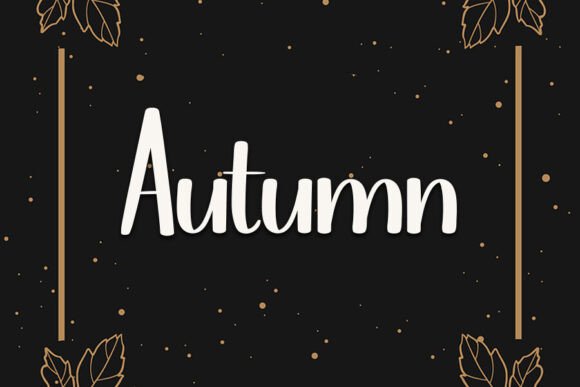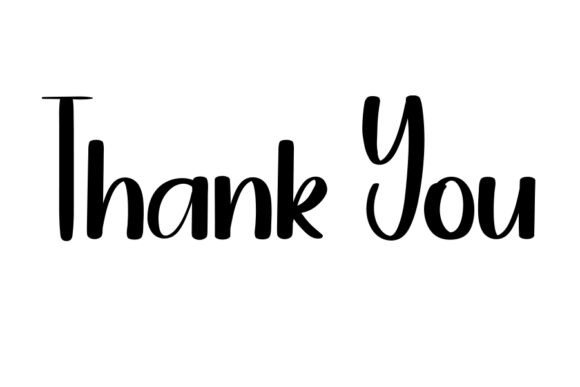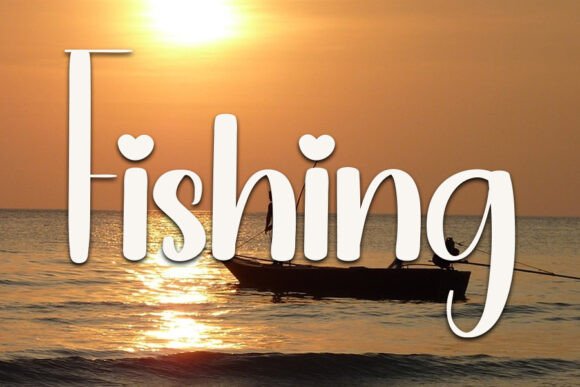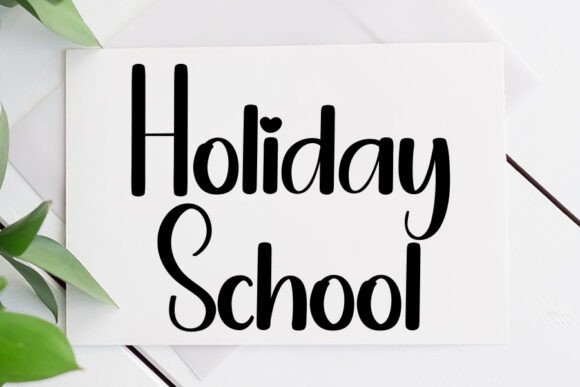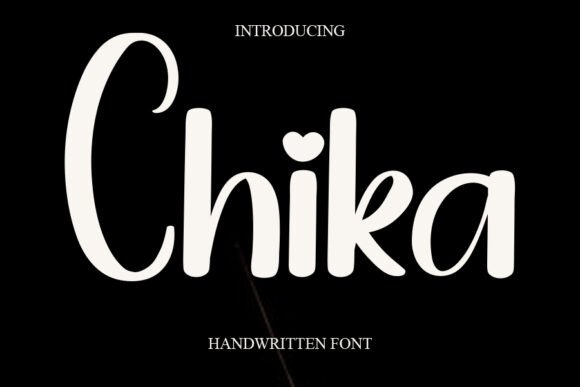
Introducing Chika Font: The Timeless Handwritten Font for Stunning Designs
Are you a designer or crafter looking for a font that can add a touch of elegance and personality to your designs? Look no further than Chika Font, a lovely and timeless handwritten font that is perfect for creating eye-catching logos, branding, and quotes. With its unique and beautiful touch, Chika Font is sure to make your design come alive!
What Makes Chika Font So Special?
Chika Font is a one-of-a-kind handwritten font that boasts a range of characteristics that set it apart from other fonts. Here are just a few reasons why Chika Font is a cut above the rest:
- Unique and Beautiful Touch: Every letter in Chika Font has a unique and beautiful touch that adds a level of sophistication and elegance to your designs. Whether you’re creating a logo, branding materials, or quotes, Chika Font is sure to make your design stand out.
- Timeless Appeal: Unlike trendy fonts that quickly go out of style, Chika Font has a timeless appeal that ensures your designs will remain stylish and relevant for years to come.
- Versatility: Chika Font is incredibly versatile, making it perfect for a wide range of design applications, from logos and branding to quotes and social media graphics.
The Benefits of Using Chika Font in Your Designs
So why should you choose Chika Font for your designs? Here are just a few benefits of using this stunning handwritten font:
- Adds Personality to Your Designs: Chika Font adds a level of personality and whimsy to your designs, making them more engaging and memorable.
- Enhances Brand Identity: With its unique and beautiful touch, Chika Font can help enhance your brand identity and make your brand more recognizable.
- Easy to Read: Despite its handwritten nature, Chika Font is incredibly easy to read, making it perfect for use in quotes, social media graphics, and other applications where readability is key.
How to Use Chika Font in Your Designs
Using Chika Font in your designs is easy! Here are a few tips to get you started:
- Pair it with Other Fonts: Chika Font pairs beautifully with other fonts, making it easy to create stunning contrast and visual interest in your designs.
- Experiment with Colors: Chika Font looks great in a range of colors, so don’t be afraid to experiment and find the perfect hue for your design.
- Use it for Headlines and Titles: Chika Font is perfect for use in headlines and titles, where its unique and beautiful touch can really make your design stand out.
Who Can Benefit from Using Chika Font?
Chika Font is perfect for a wide range of designers and crafters, including:
- Graphic Designers: Chika Font is a must-have for graphic designers looking to add a touch of elegance and personality to their designs.
- Branding Experts: With its unique and beautiful touch, Chika Font is perfect for branding experts looking to create stunning brand identities.
- Crafters and Makers: Chika Font is also perfect for crafters and makers looking to add a personal touch to their handmade products.
In conclusion, Chika Font is a lovely and timeless handwritten font that is perfect for creating eye-catching logos, branding, and quotes. With its unique and beautiful touch, Chika Font is sure to make your design come alive! Whether you’re a designer, crafter, or branding expert, Chika Font is a must-have font that is sure to take your designs to the next level.